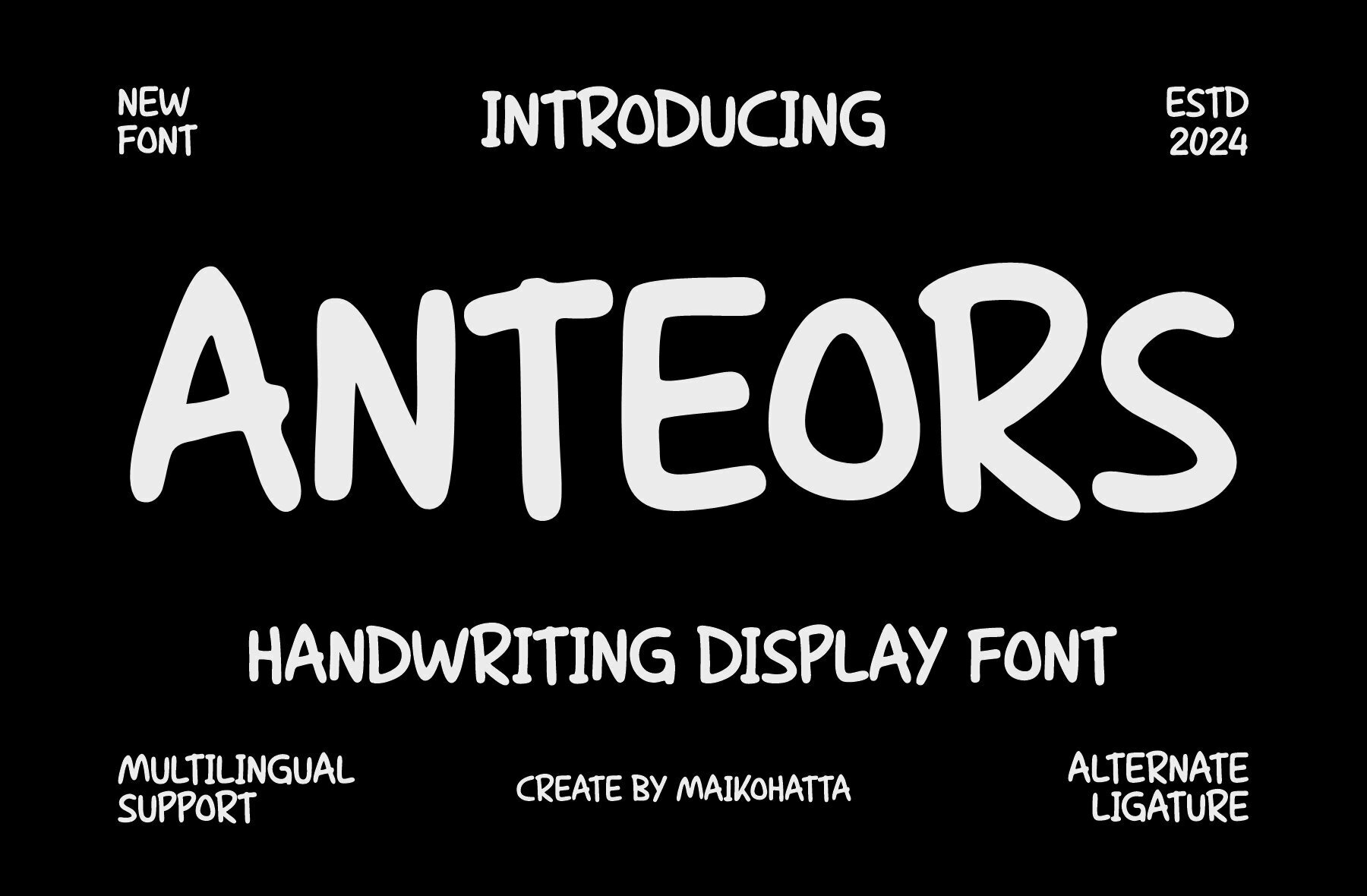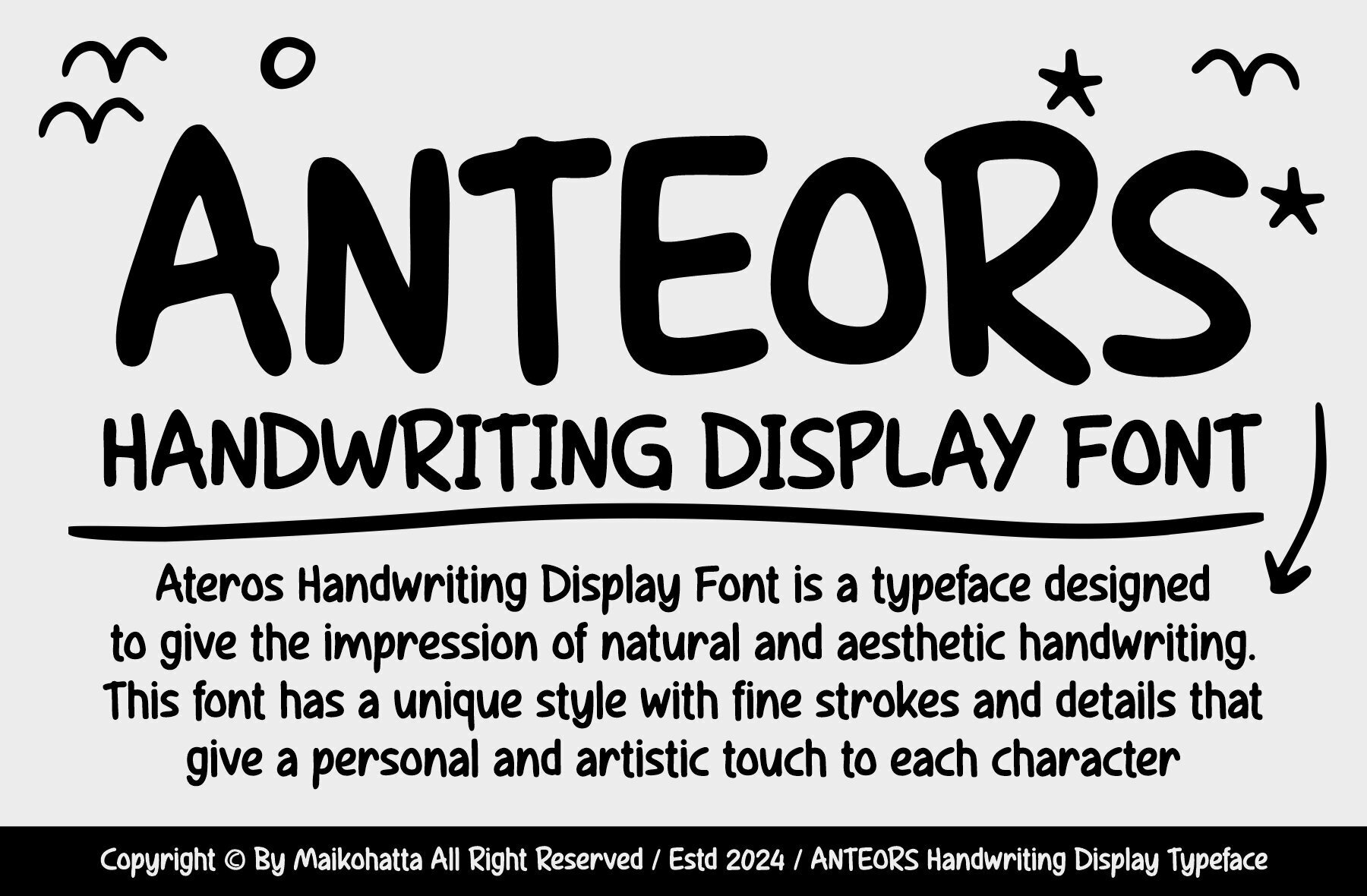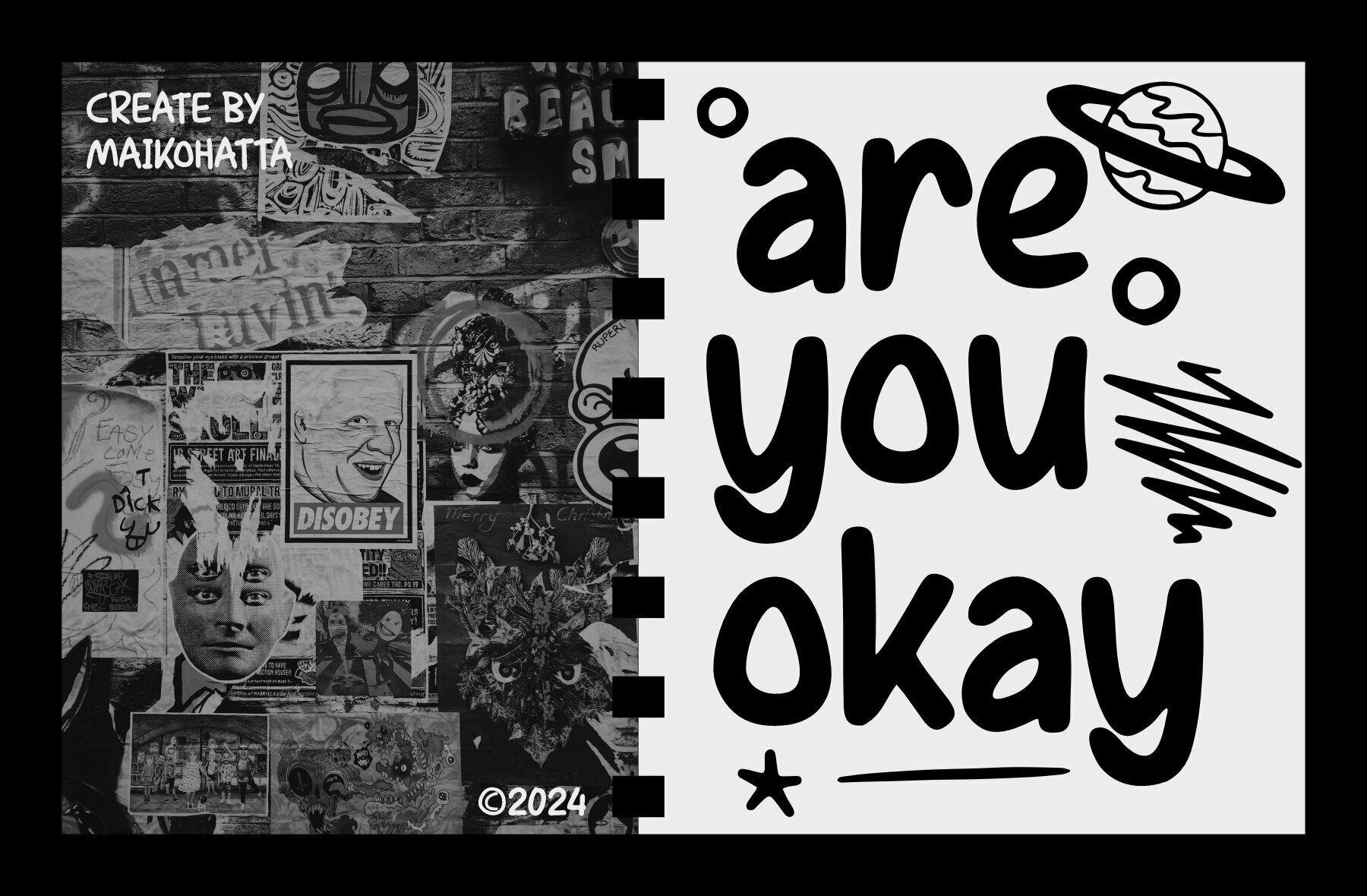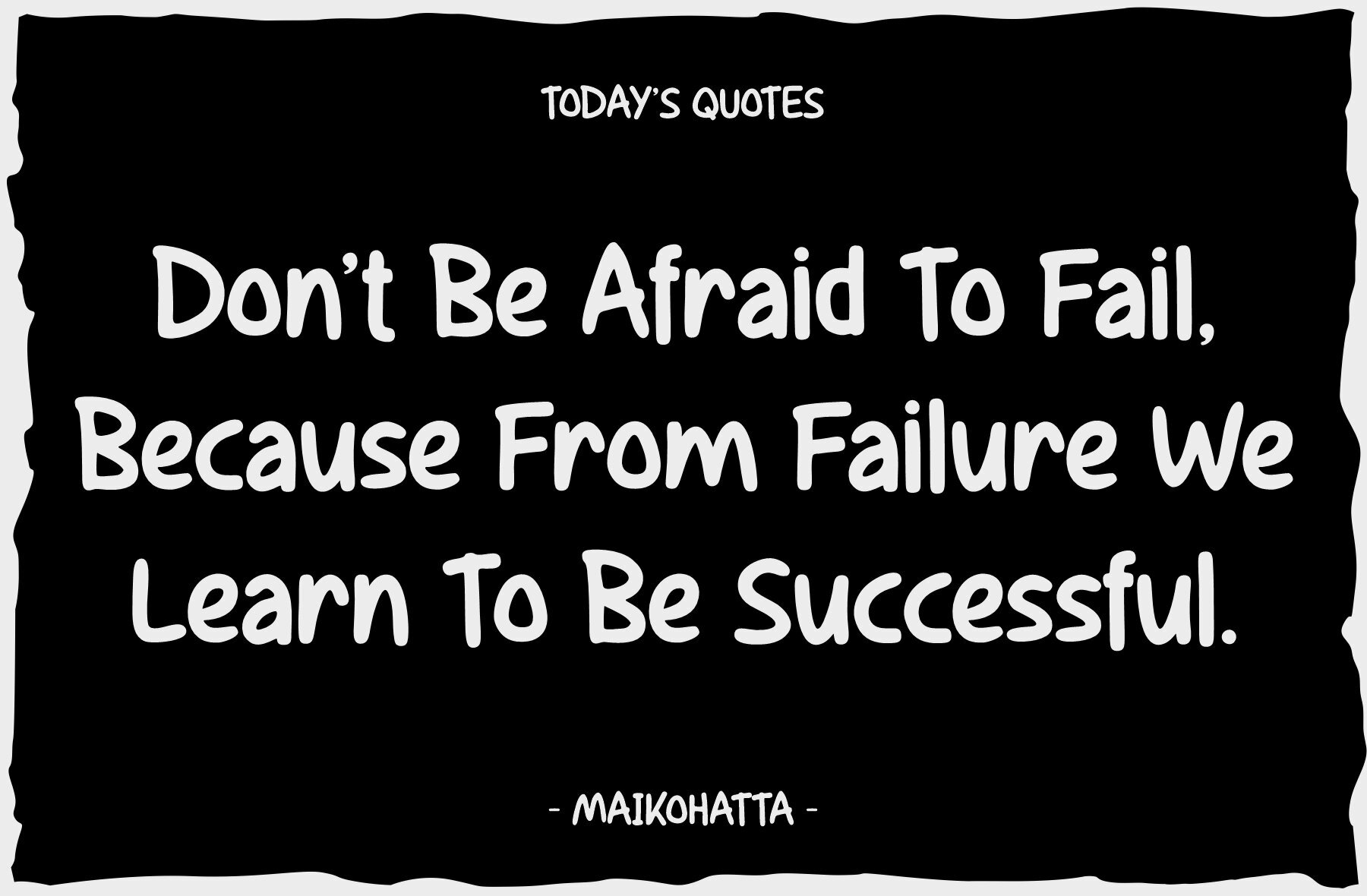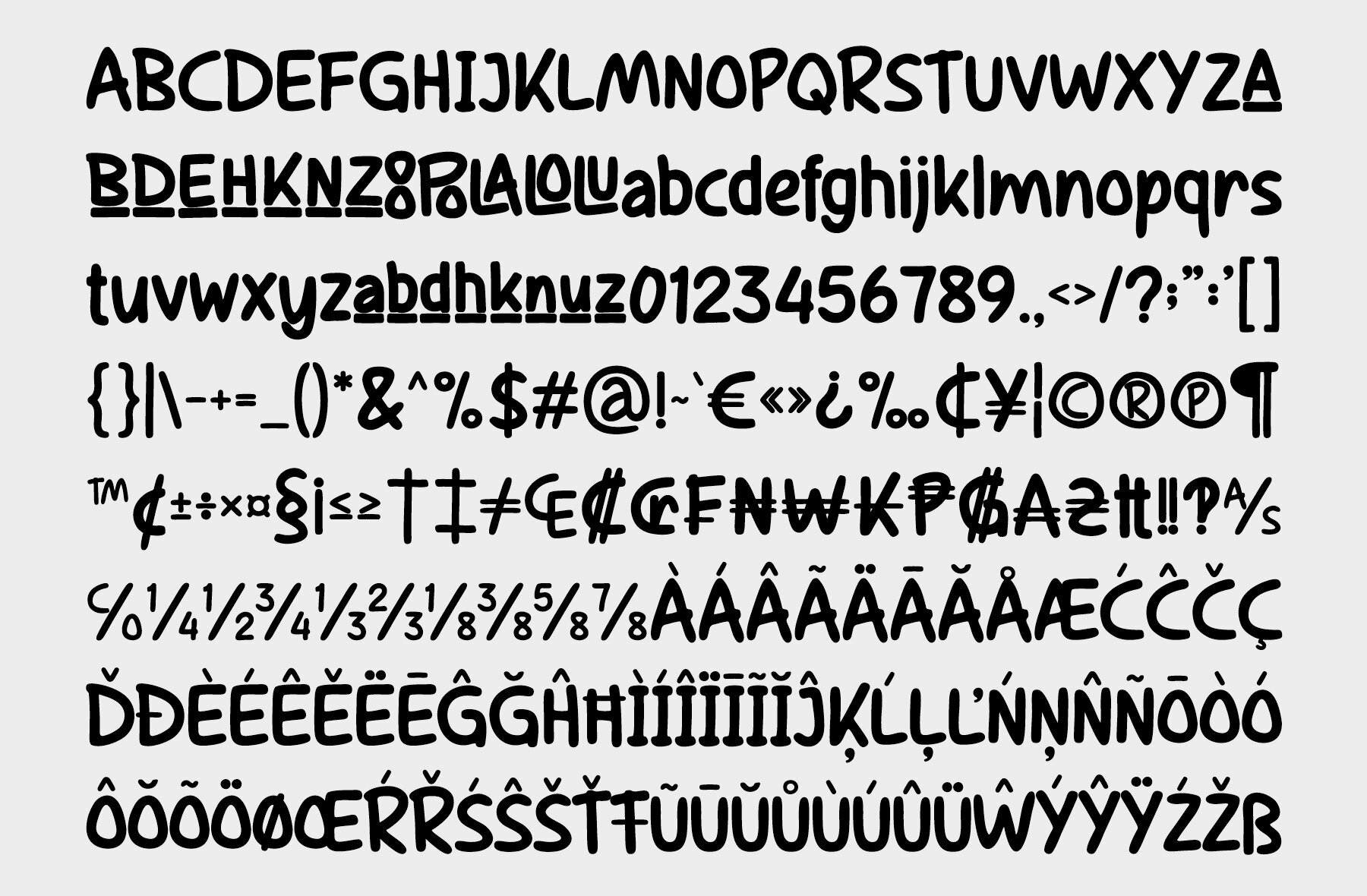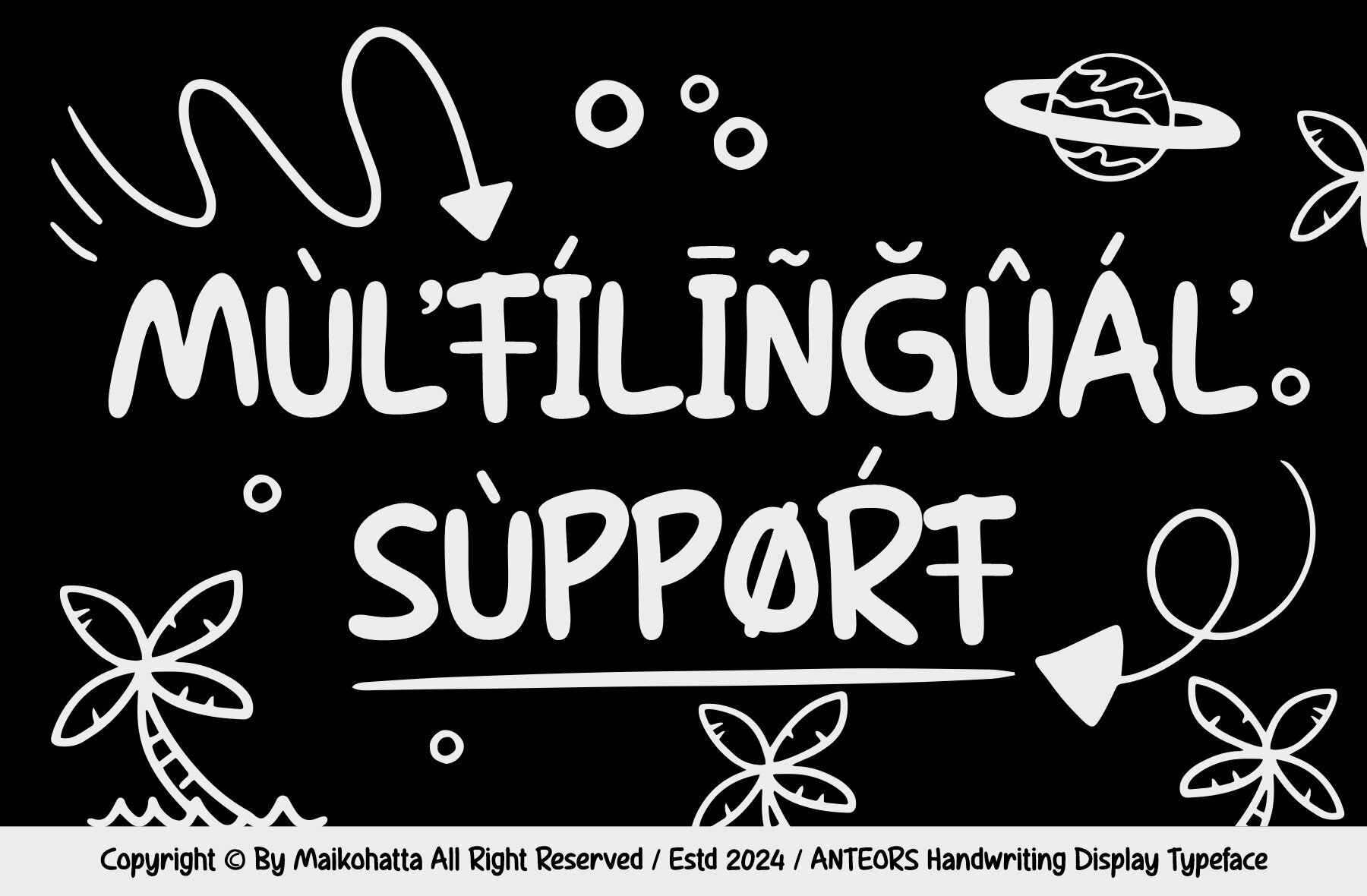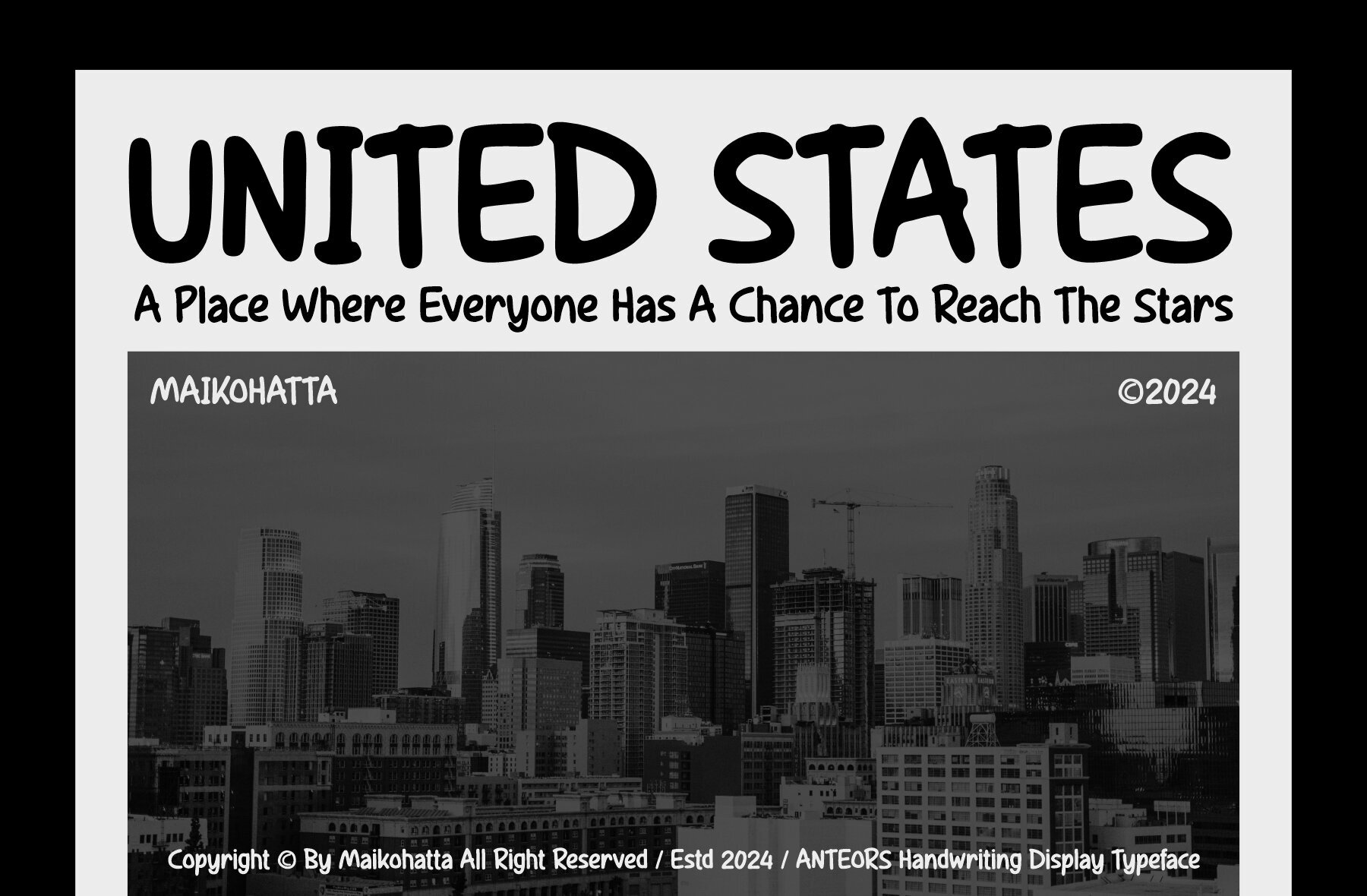
Anteors Font
Anteors Regular
Anteors offers a flexible and visually appealing option for various design contexts. This contemporary and professional font enhances any graphic design or modern typography project with its clean lines and simplicity. Anteors includes uppercase, lowercase characters, multilingual support, ligatures, and alternates, making it a versatile addition to your design toolkit.